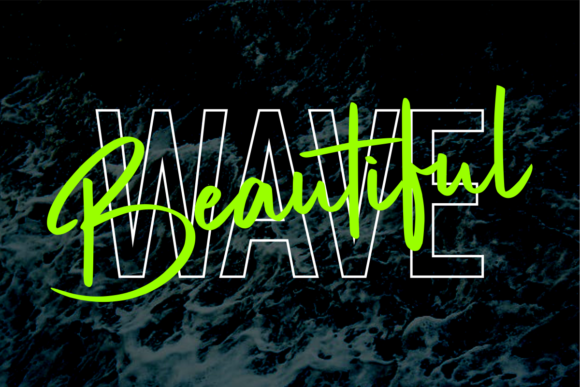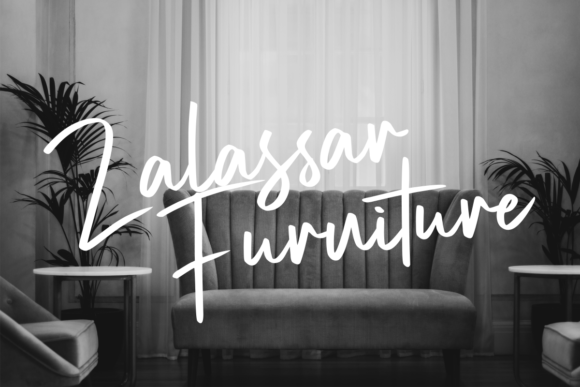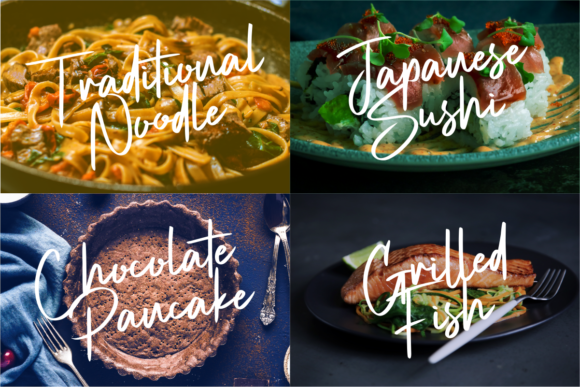
Introduction to Marietta Sussaffe Font
There’s something magical about discovering a new design resource that sparks creativity and inspires your next project. As a designer, you know the feeling of being stuck in a rut, and then suddenly stumbling upon a font that breathes new life into your work. For me, that moment came when I discovered the Marietta Sussaffe Font – a beautiful and natural script with organic and smooth letters that instantly added an authentic charm to my designs.
With its transparent background and high-quality design, Marietta Sussaffe Font is the perfect addition to any creative project. Whether you’re working on a logo, a brochure, or a website, this font is sure to elevate your design and make it stand out from the crowd. And the best part? It’s available for free download, making it an invaluable resource for designers of all levels.
As a valuable design resource, Marietta Sussaffe Font is not just a pretty face – it’s a game-changer. With its unique and elegant style, it’s the perfect tool for designers looking to add a touch of sophistication and class to their work. So why not give it a try and see the magic for yourself?
Key Features of Marietta Sussaffe Font
- High-quality, elegant script font suitable for creative projects, such as invitations, wedding stationery, and other design resources.
- Features a large character set, including uppercase and lowercase letters, numerals, and punctuation marks.
- Unique characteristics include swashes and flourishes, adding a touch of elegance and sophistication to any design project.
Honest Review: Marietta Sussaffe Font
I recently had the chance to work with the Marietta Sussaffe Font on a creative project and I must say it’s been a game-changer. The transparent background and high-quality design make it perfect for any project that requires a touch of elegance.
- High-quality design: The Marietta Sussaffe Font is incredibly detailed and has a unique charm that’s hard to find in other fonts.
- Limited versatility: While the Marietta Sussaffe Font is perfect for elegant designs, it may not be the best choice for more casual or playful projects.
- Not suitable for all languages: The font may not support all languages, which could be a limitation for international projects.
Overall, I’m thoroughly impressed with the Marietta Sussaffe Font. Its high-quality design, transparent background, and free download make it an excellent resource for any designer. While it may have some limitations, it’s a valuable addition to any design arsenal.
The Marietta Sussaffe Font is a high-quality design resource that can elevate any creative project. This free download is perfect for designers looking for a unique and elegant font.
For the best results, use the Marietta Sussaffe Font in conjunction with a transparent background. This will give your designs a clean and elegant look. Experiment with different font sizes and colors to find the perfect combination for your project.
Common Use Cases for Marietta Sussaffe Font
The Marietta Sussaffe Font is perfect for a variety of creative projects, including invitations, brochures, and business cards. Its elegant and sophisticated design makes it ideal for any project that requires a touch of luxury and sophistication.